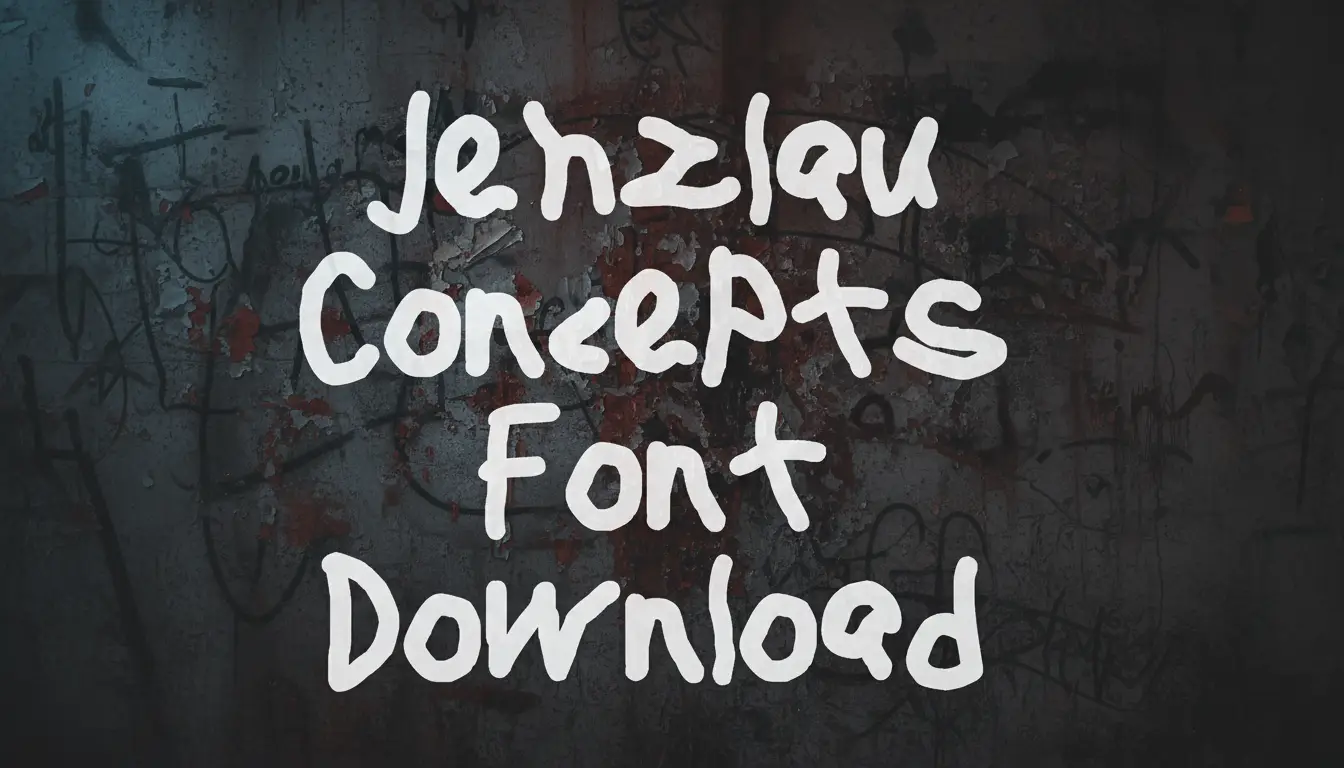
Jehzlau Concepts Font
Jehzlau Concepts is a handwritten font. The letters have the small wobbles and personality of real handwriting, so your text feels warm instead of printed. You can download it for free and test it with your own words in the preview above.
What You Can Type With Jehzlau Concepts
Jehzlau Concepts covers the full alphabet in upper and lowercase, plus all ten numbers, so you can set names, dates and prices without switching fonts. Everyday marks like &, !, ? and @ are there too. There are no accented letters like é or ñ, so it's best kept to English text.
Where Jehzlau Concepts Works Best
Think of Jehzlau Concepts for greeting cards, journal pages and friendly social posts. Set it a bit larger than you would a normal text font. Handwriting styles lose their charm once they get too small to read comfortably.